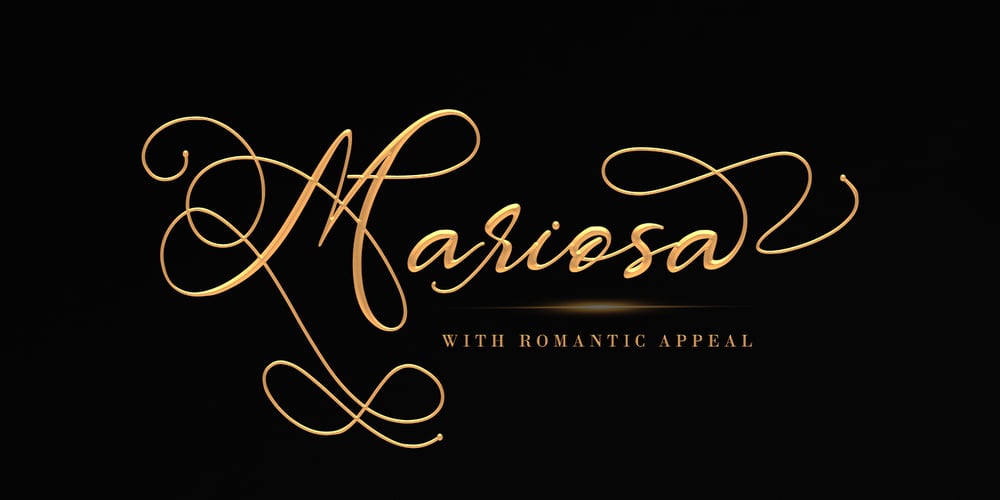
Mariosa
Mariosa font
Mariosa Font Family was designed by Thomas Aradea and published by Letterara. Mariosa contains 2 styles and family package options. Mariosa is an elegant font with a romantic appeal; this font is for those who are in need of an elegant and appropriately modern calligraphy script. Get inspired by its bold swashes.